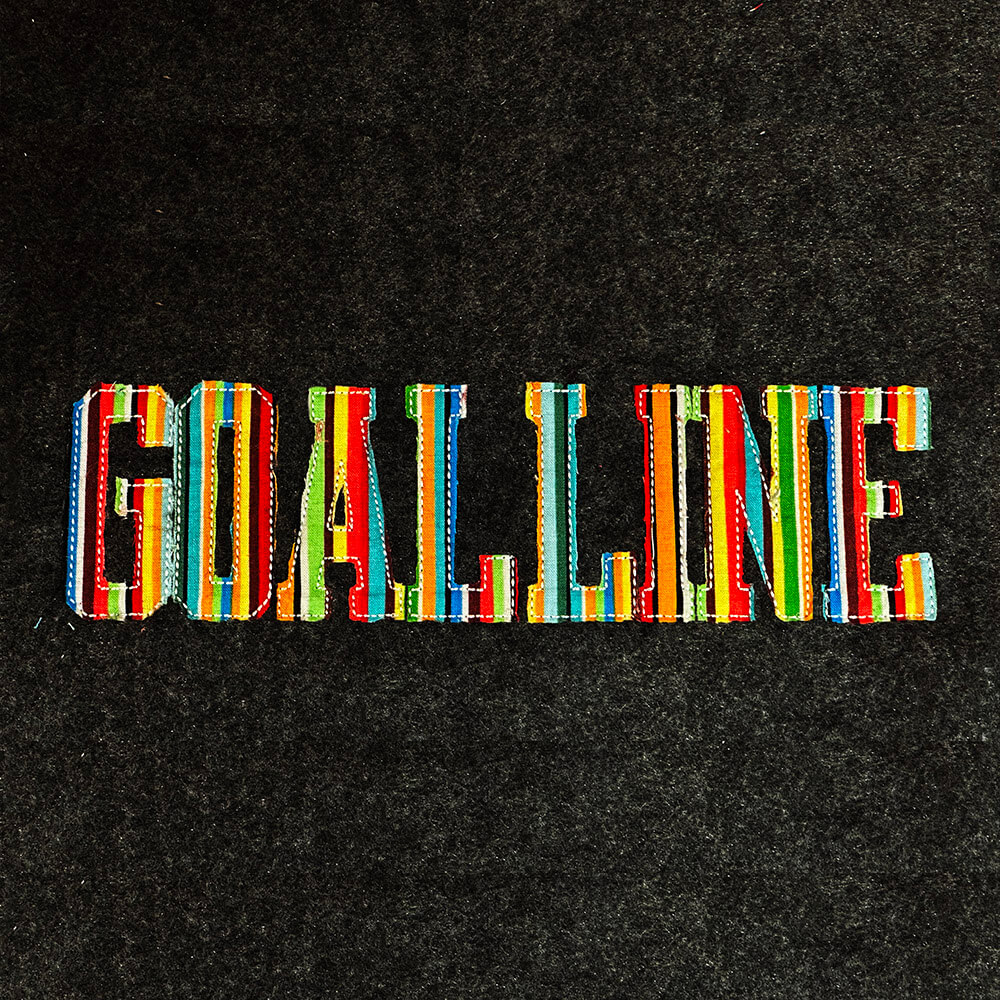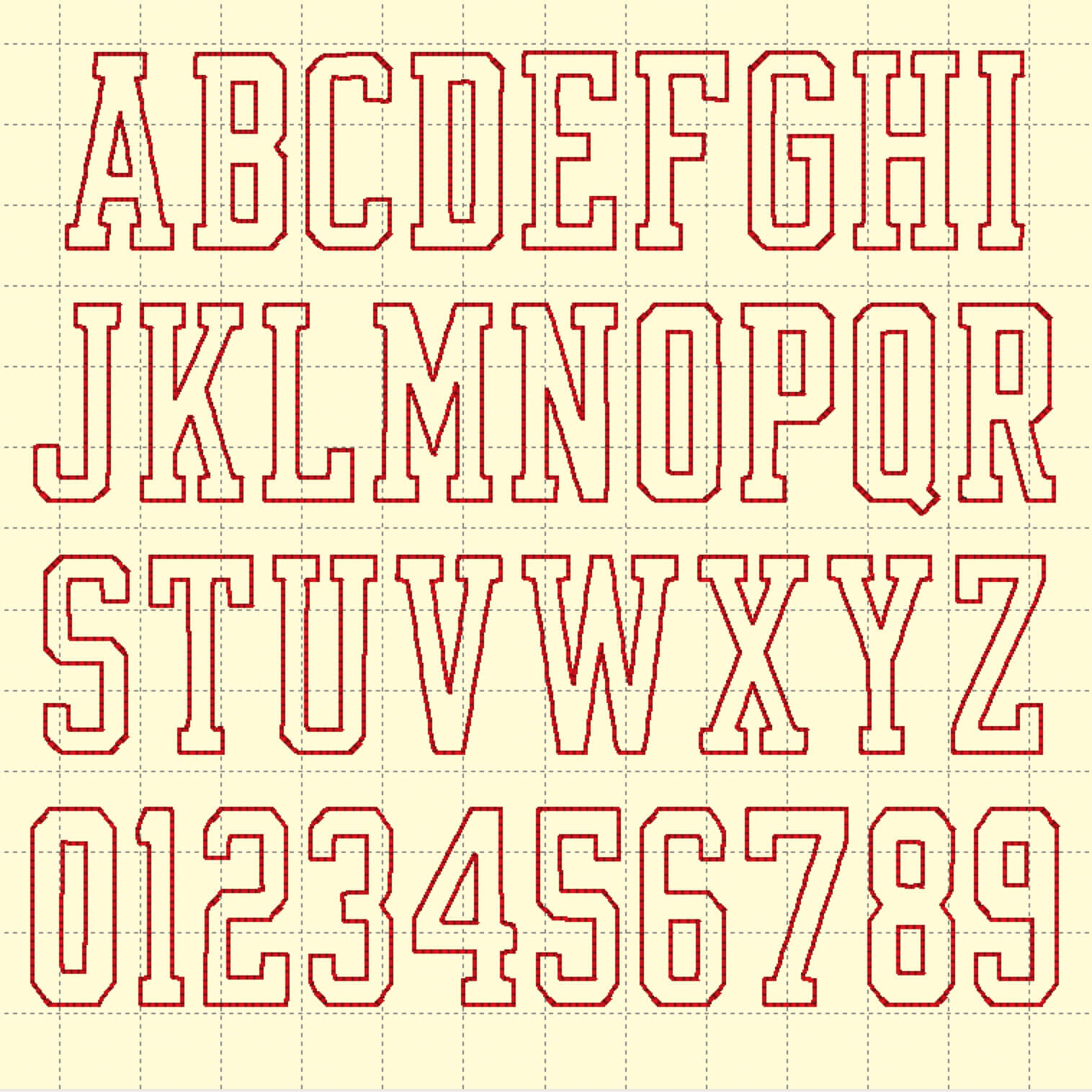
Goal Line Raw Edge Applique Machine Embroidery Font
Give your projects a sporty, varsity-inspired vibe with Goal Line! This bold raw-edge applique font is perfect for personalized, athletic-style spiritwear.
Goal Line Raw Edge Appliqué Font – Machine Embroidery Font
All upper case letters and numbers
Goal Line Raw Edge Applique Machine Embroidery Font